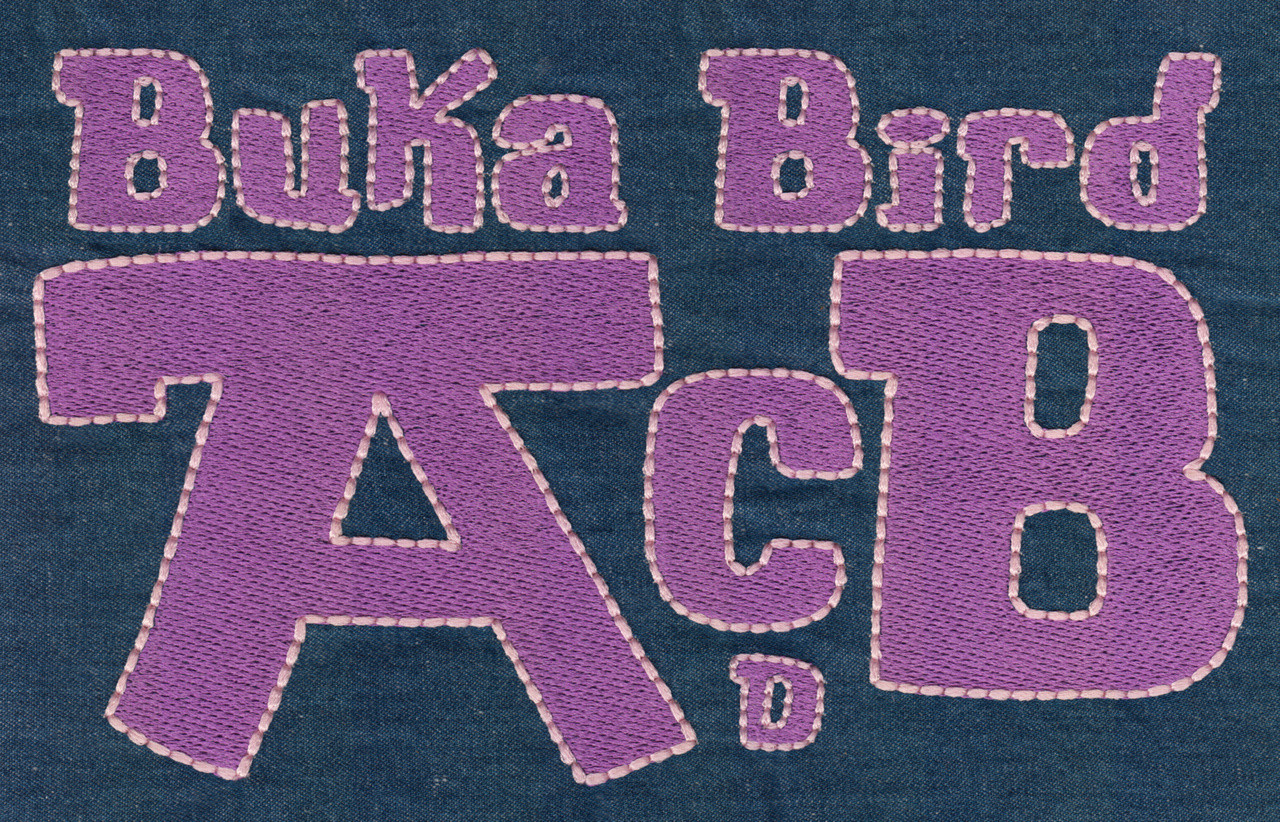
686 Buka Bird Fill & Floss Font
686 Buka Bird Fill & Floss Font comes in 0.5", 1", 1.5", 2", 2.5", 3", 3.5" and 4" heights based on the capital "A". Includes uppercase letters, lowercase letters, numbers and ten punctuation marks as shown in the character chart image above. All sizes are finished in Fill Stitch with Floss Stitch outlines in two-color setup. See FAQ 14 for more information on Floss Stitch.